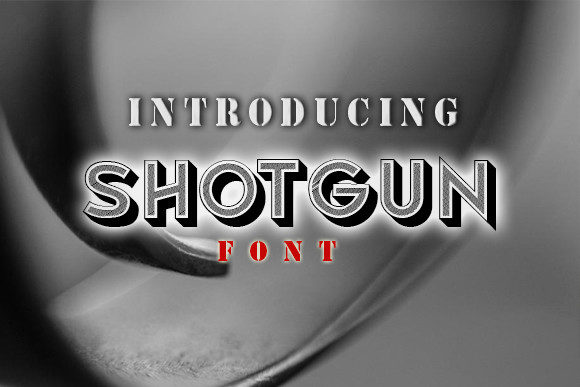
Prepare yourself to be captivated by Shotgun Font, a spectacular decorative font that will leave you spellbound. Its bold and commanding presence is guaranteed to make your designs stand out, leaving an indelible mark on your audience.
With its clean and crisp lines, Shotgun Font exudes an air of sophistication and elegance. Each meticulously crafted glyph is a testament to the font's unwavering attention to detail, ensuring that every design element radiates with finesse and refinement.
Step into a world of endless possibilities with Shotgun Font. Its versatility knows no bounds, making it the perfect choice for a wide array of creative projects. From tantalizing banners and captivating headlines to mesmerizing posters and alluring social media graphics, Shotgun Font will elevate your designs to new heights, leaving your audience utterly enthralled.
Unleash your creativity and paint the town red with Shotgun Font. Its vibrant and dynamic personality is perfect for adding a touch of flair and excitement to your designs. Prepare to capture hearts and turn heads as your creations adorned with Shotgun Font leave a lasting impression that lingers in the minds of all who behold them.